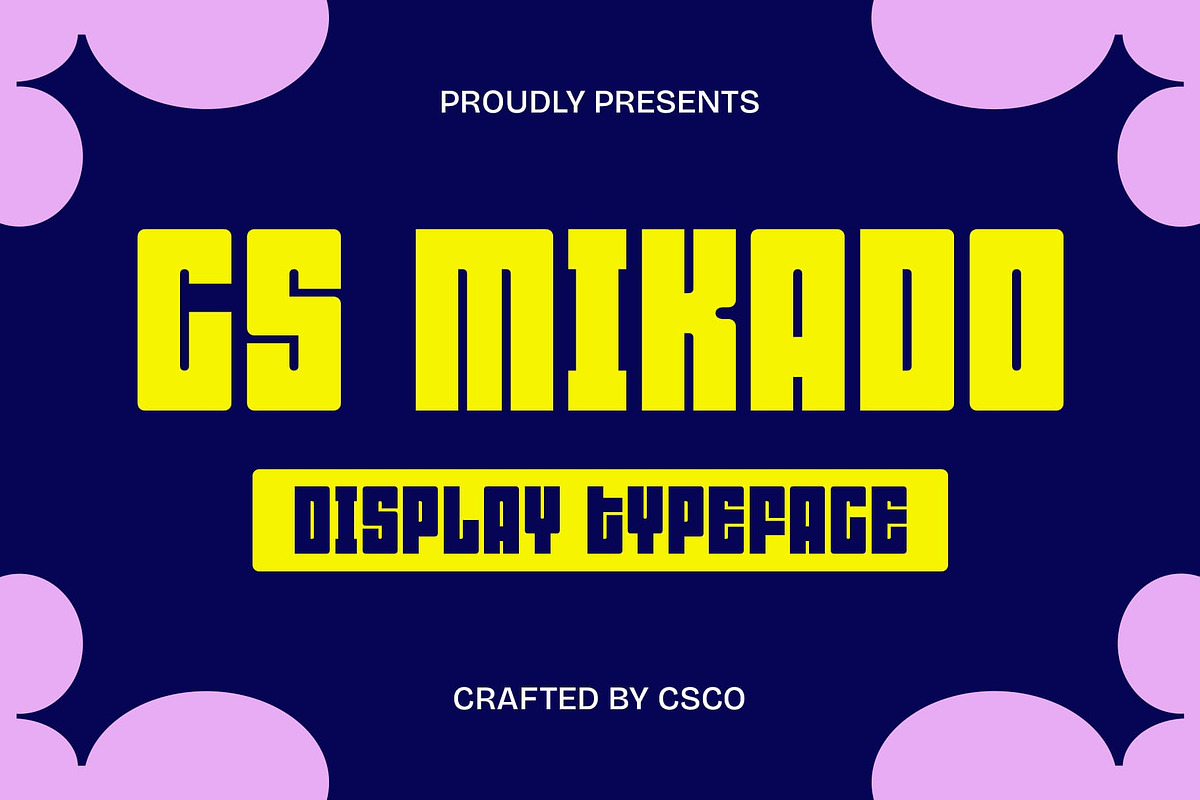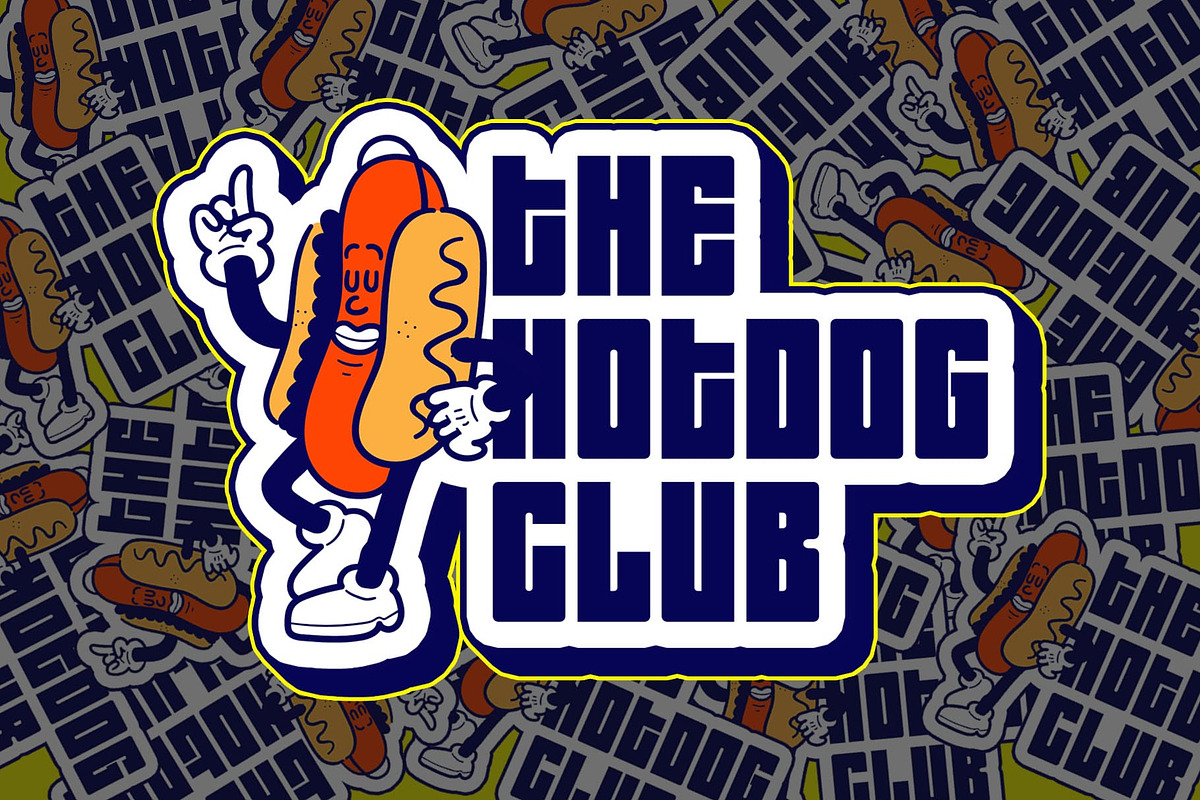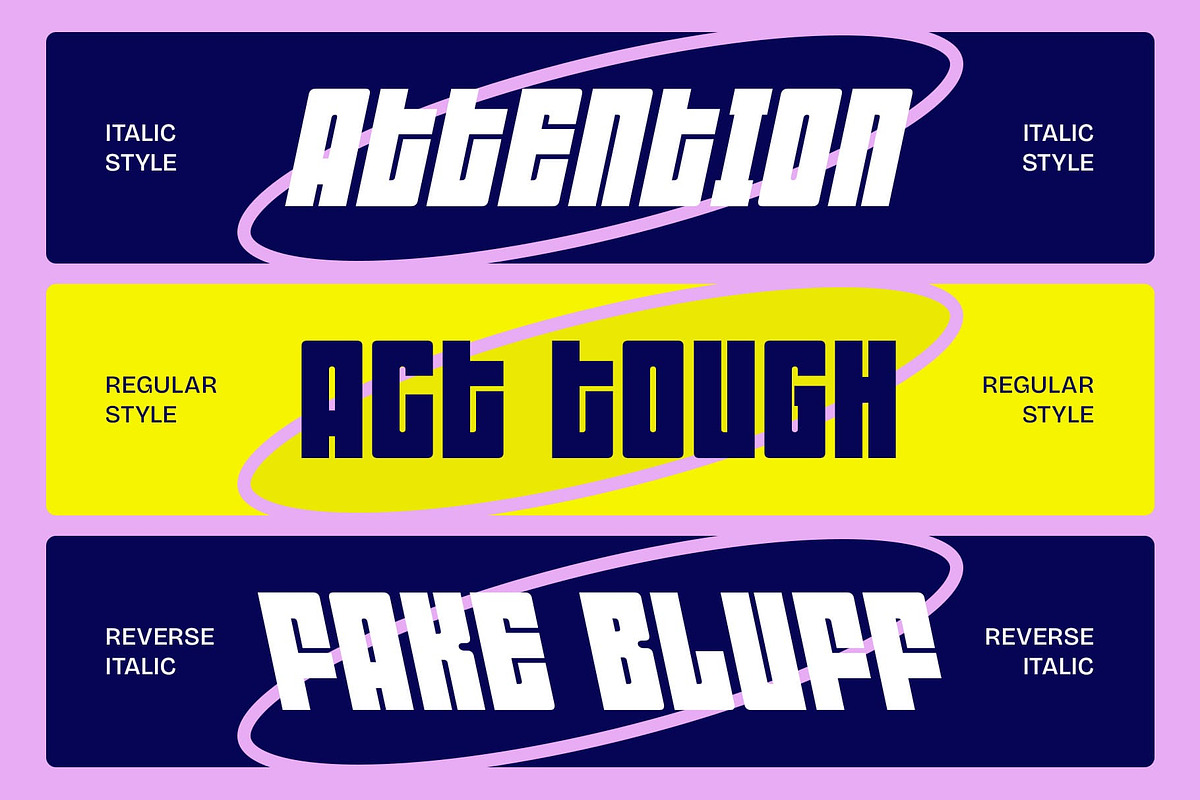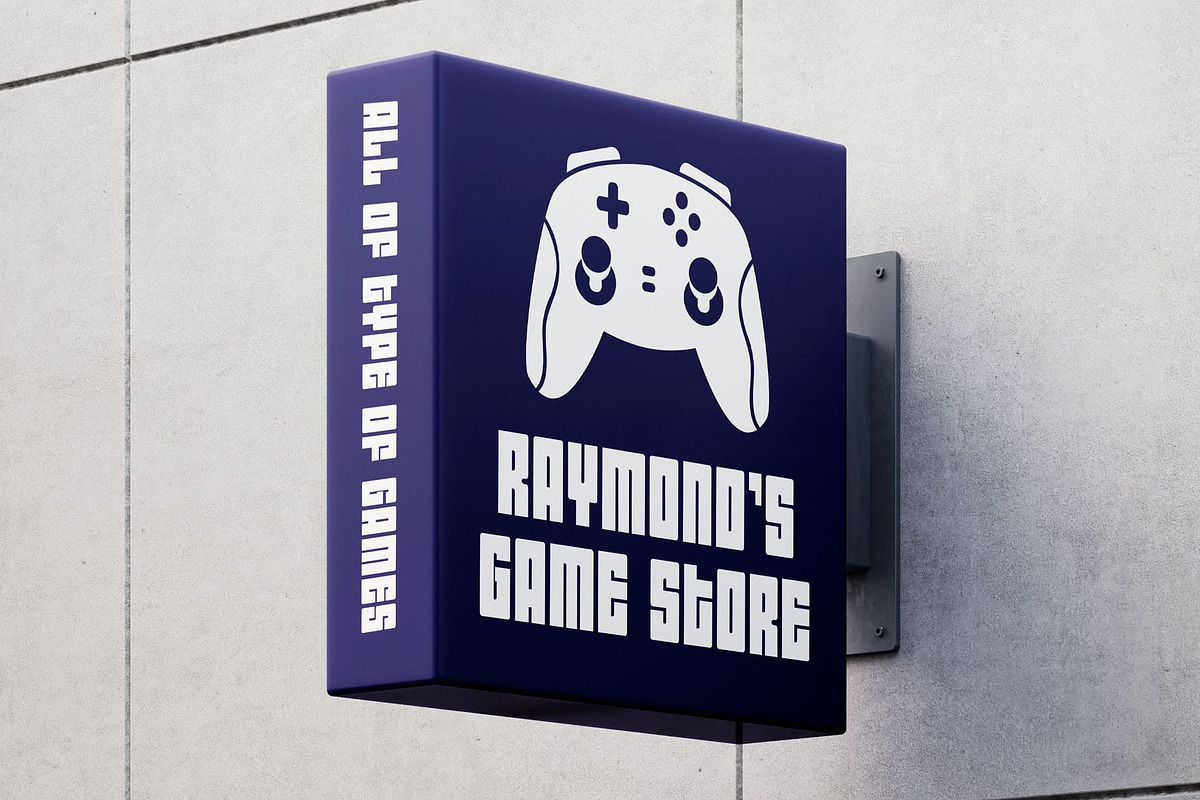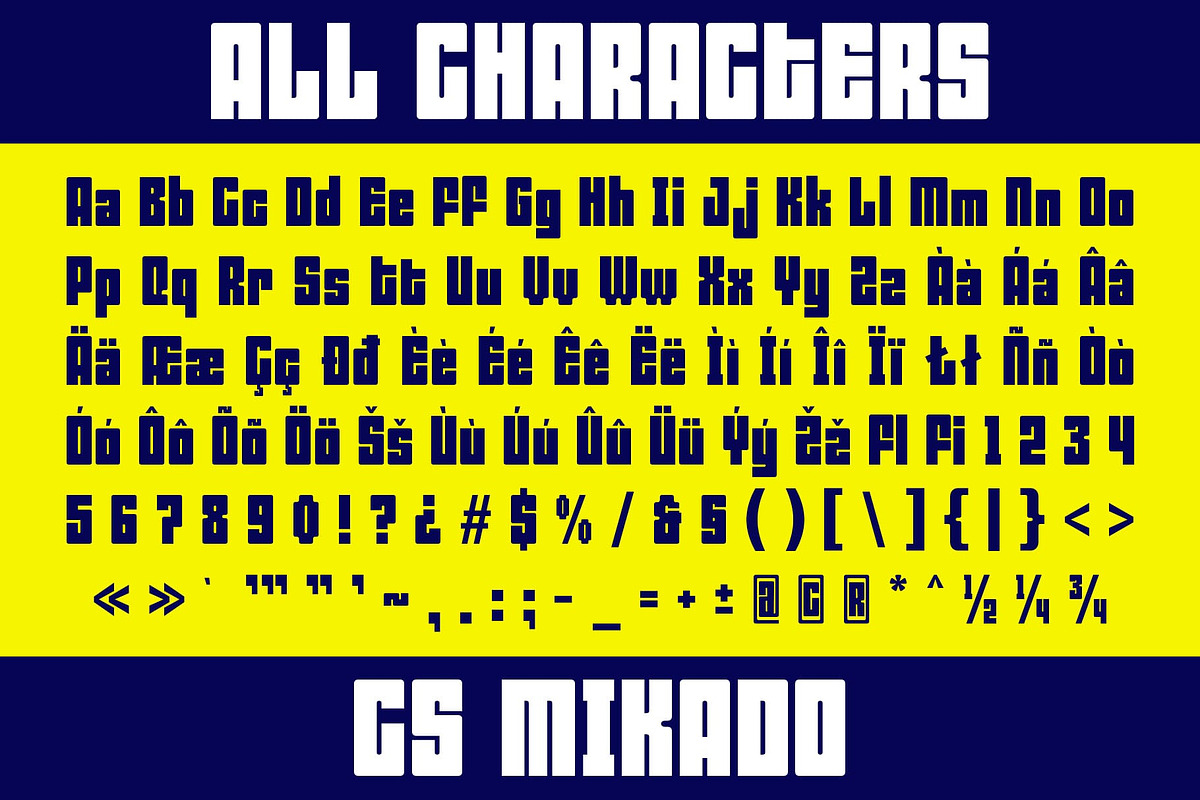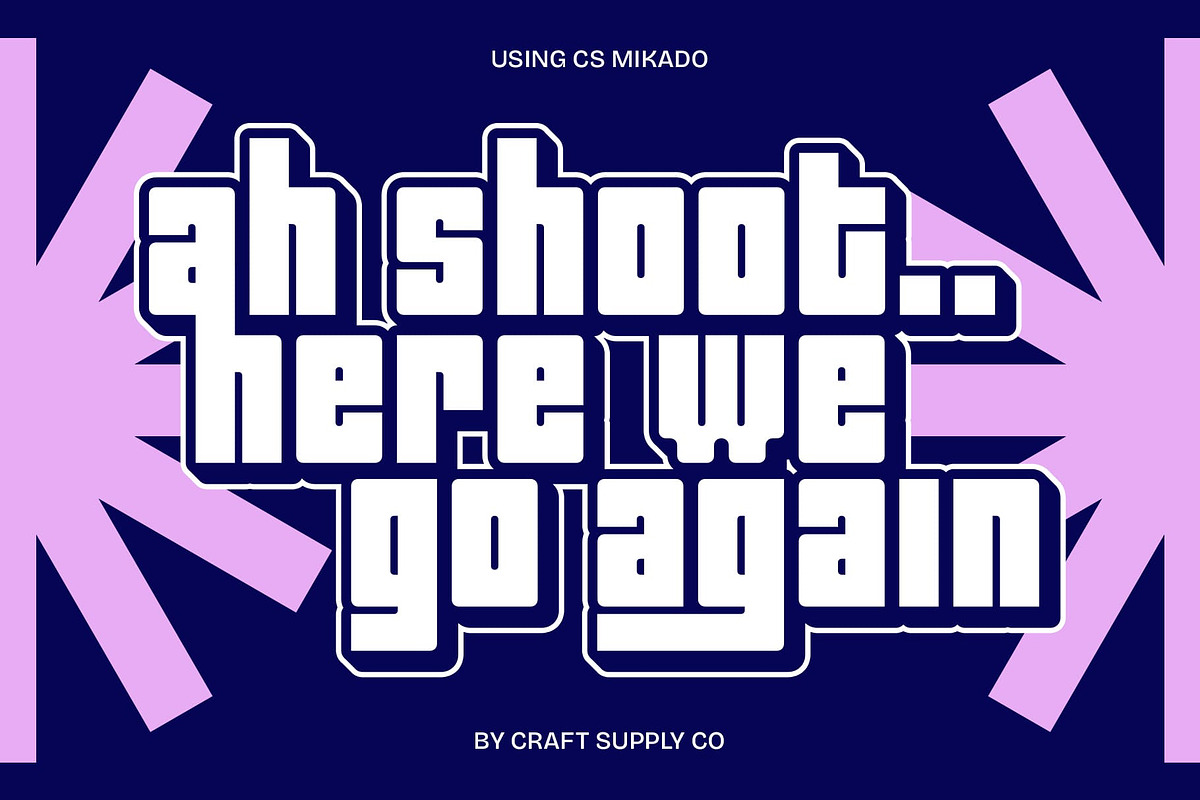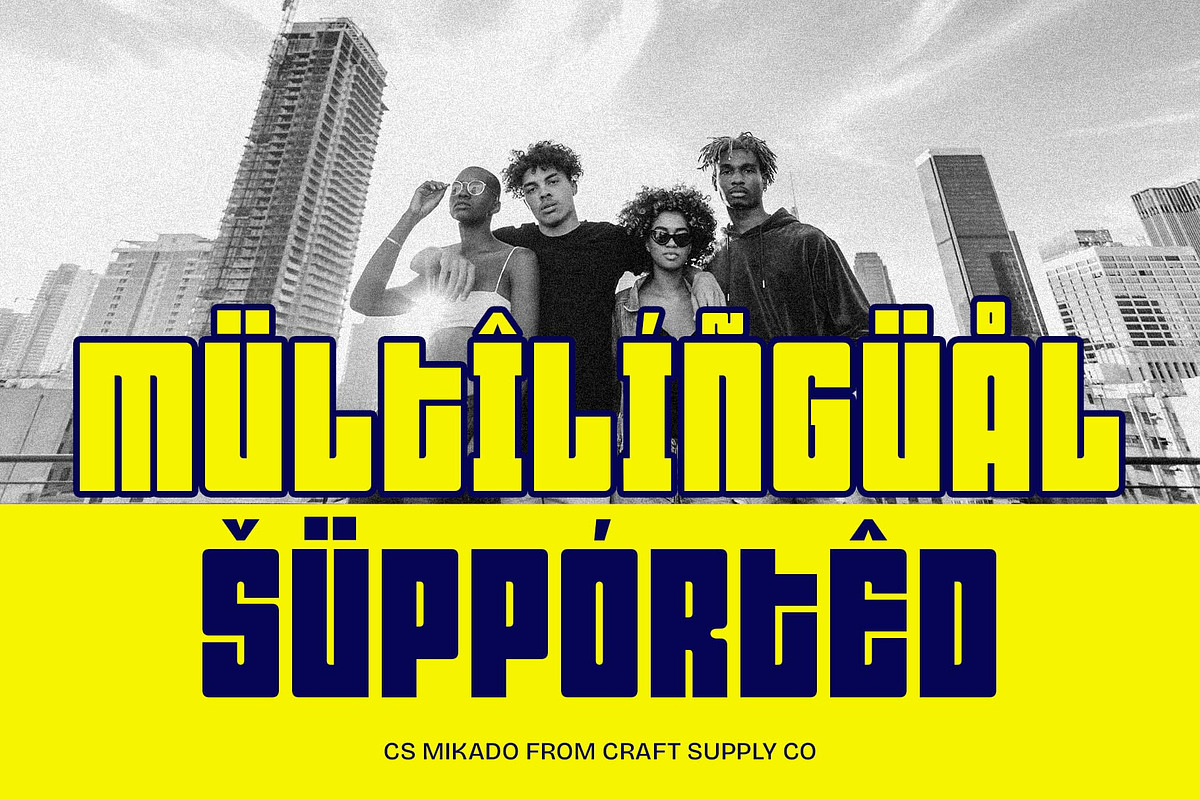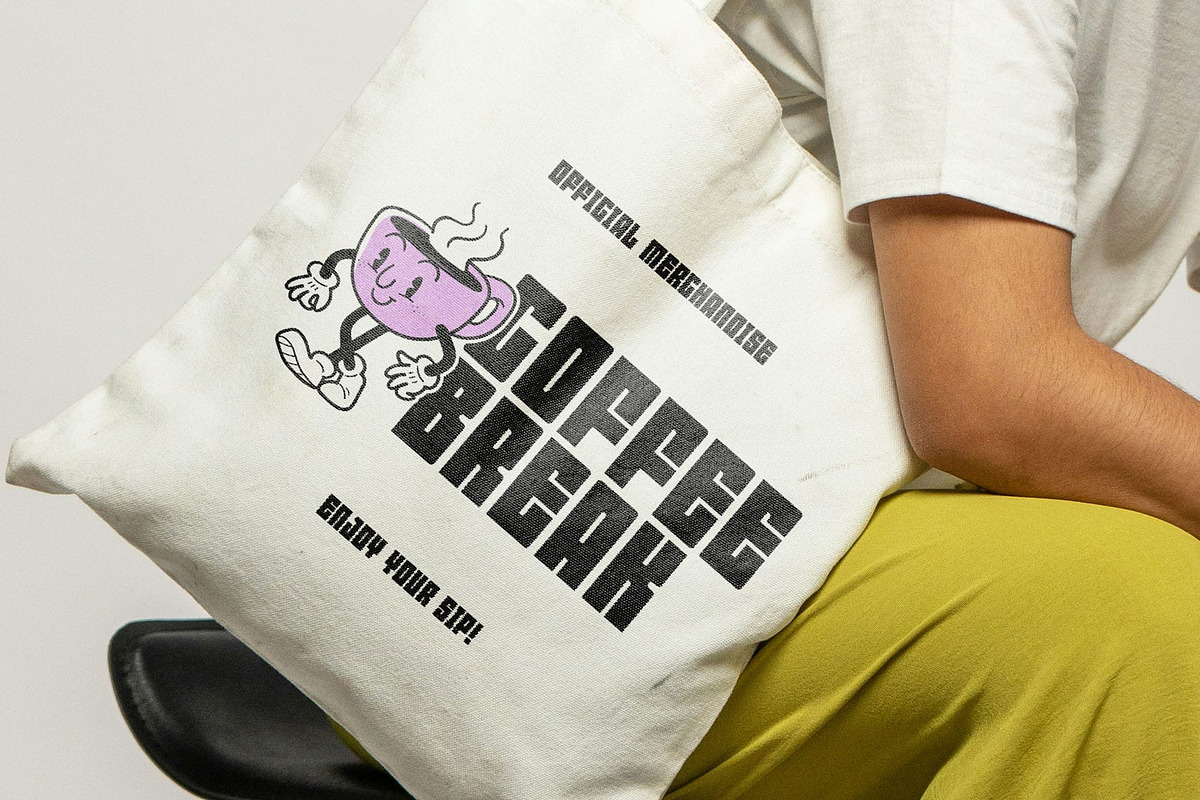
CS Mikado – Condensed Font
CS Mikado – Condensed Font: Bold, Compact, and Y2K-Inspired
A Modern Condensed Display Font CS Mikado is a striking sans-serif display font with a condensed, bold structure that exudes energy and confidence. Designed for maximum impact, its compact form enhances readability while maintaining a sleek and modern aesthetic. The strong letterforms and minimal spacing make it a perfect choice for attention-grabbing typography.
Funky Y2K Aesthetic with a Futuristic Edge Inspired by the bold typography of the early 2000s, CS Mikado embraces the Y2K aesthetic with dynamic letterforms and high-energy visuals. Its edgy, futuristic appeal makes it ideal for designs that reflect nostalgia while maintaining a fresh and contemporary look. The mix of thick strokes and subtle curves adds a distinctive personality, perfect for statement pieces. Designed to stand out, it’s the go-to font for brands looking to create a strong, stylish, and youthful identity.
Versatile for Contemporary Creative Projects From streetwear branding and music visuals to magazine layouts and tech-inspired designs, CS Mikado adapts effortlessly to trend-driven projects. Its combination of compact form and bold personality ensures that it remains a standout choice for modern creatives looking to make a lasting impact.
- CS Mikado Regular
- CS Mikado Italic
- CS Mikado Reverse Italic